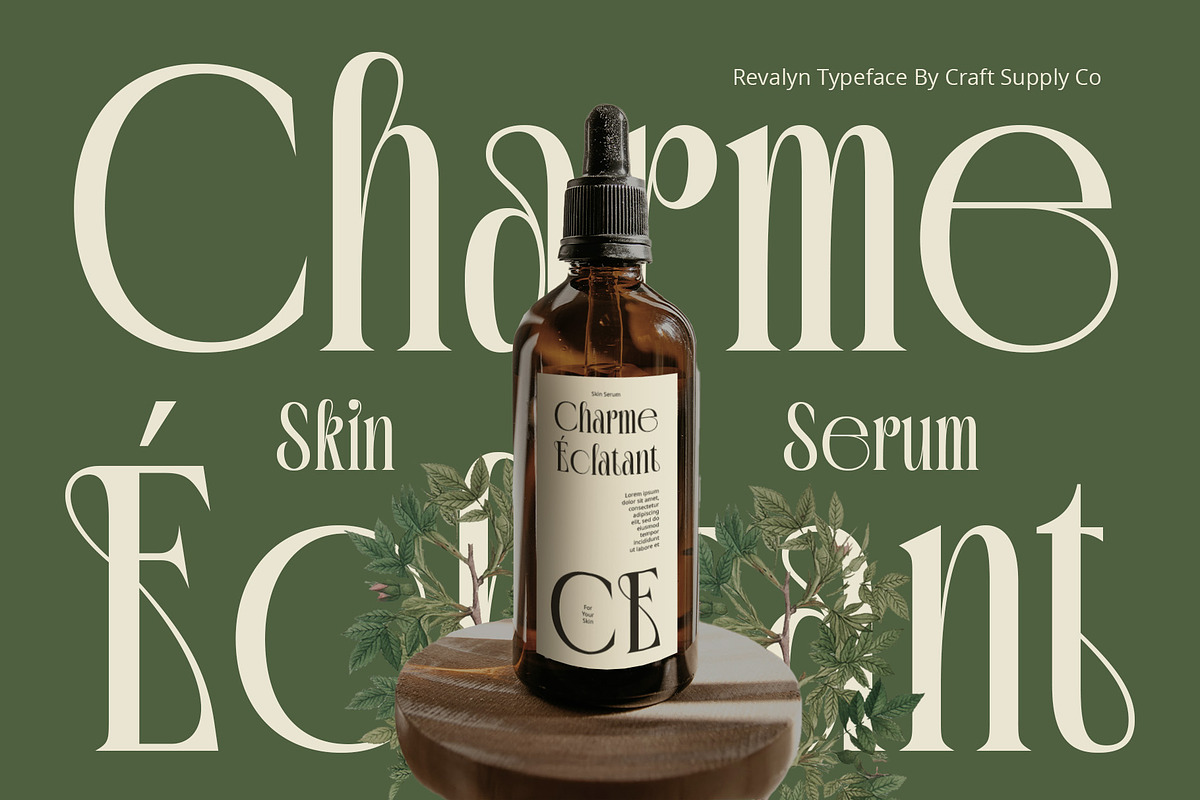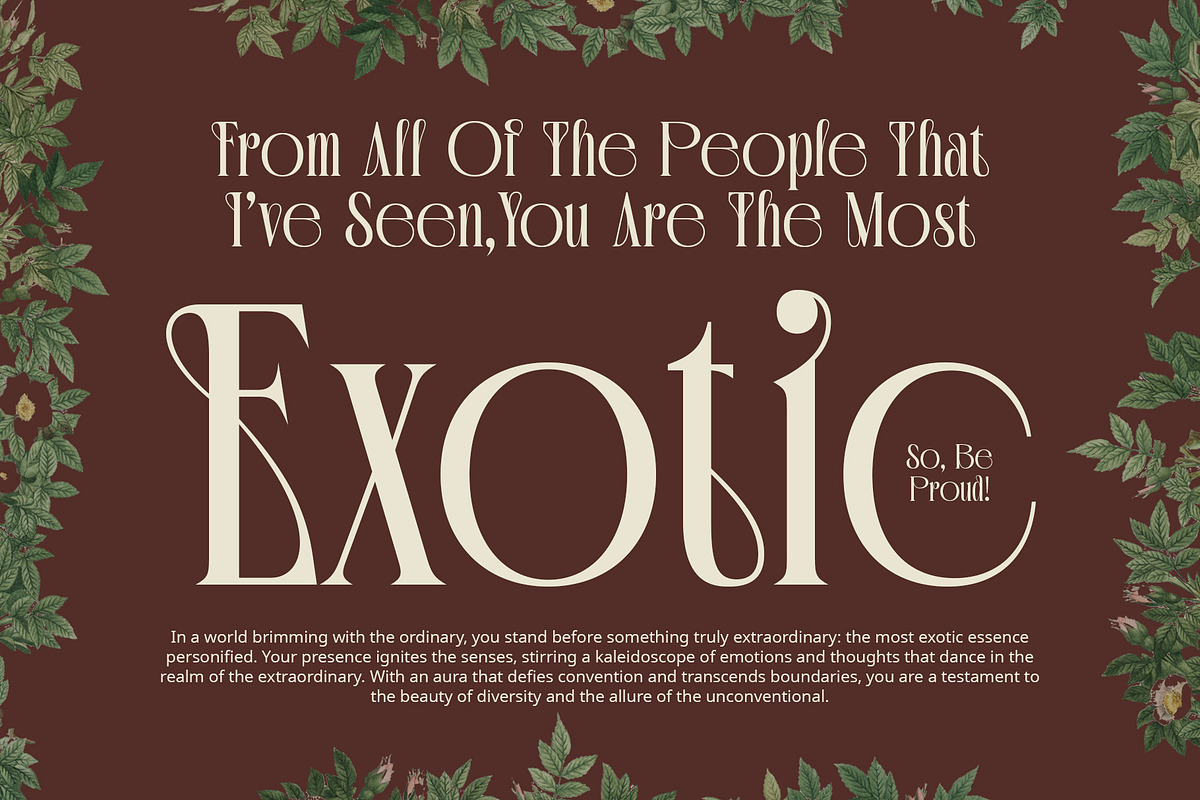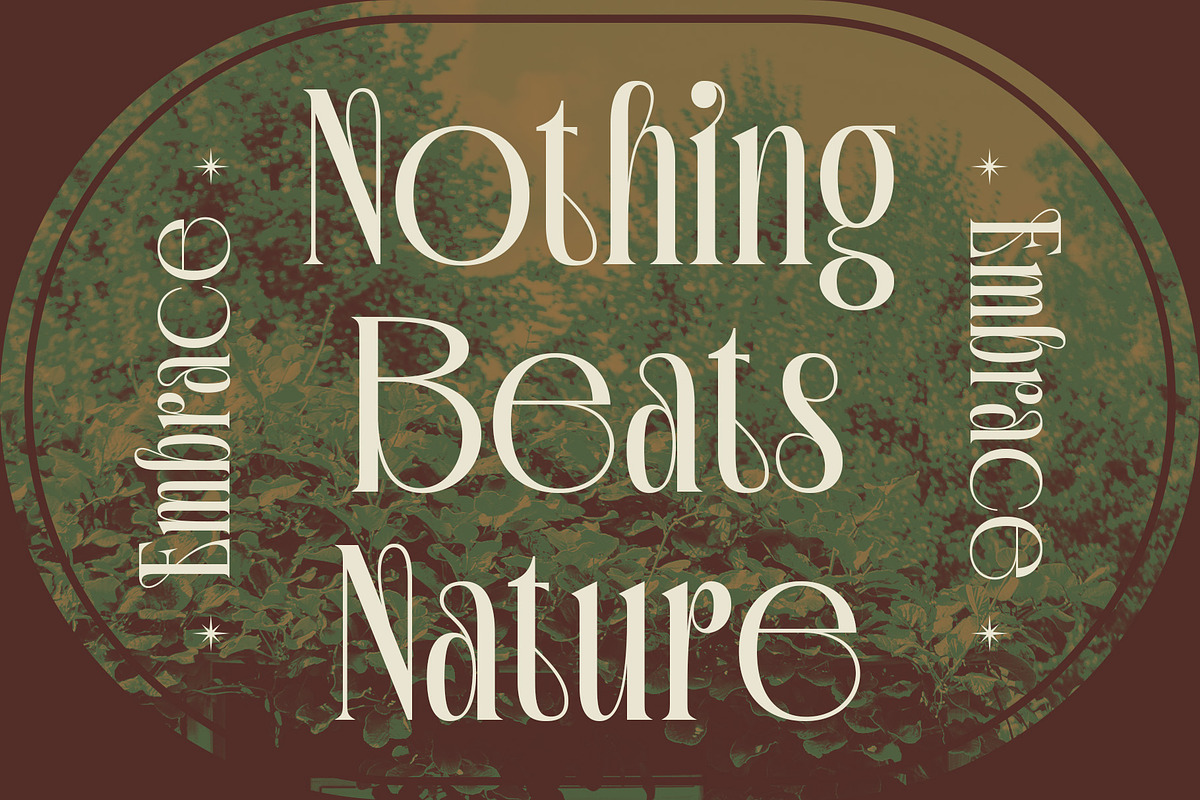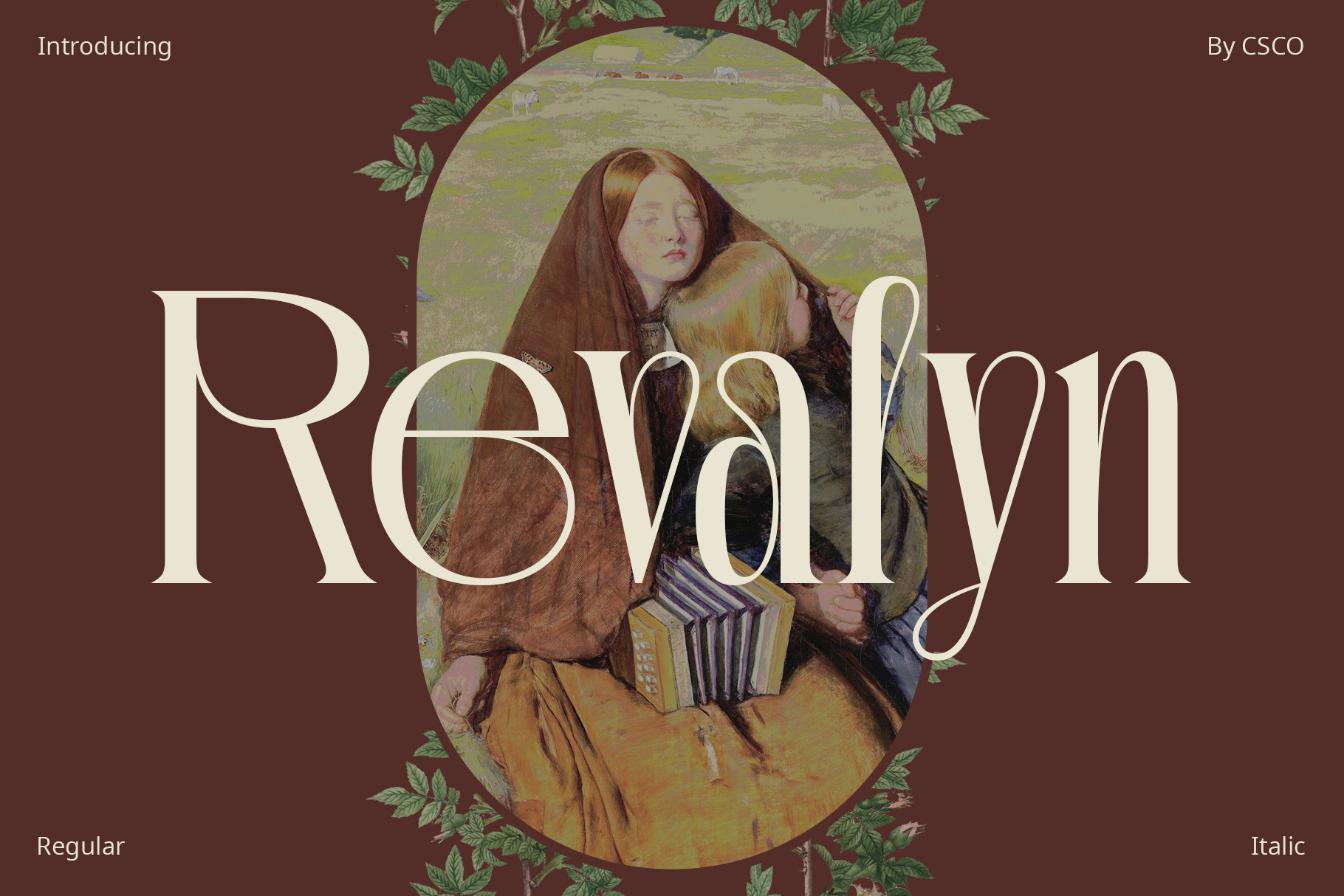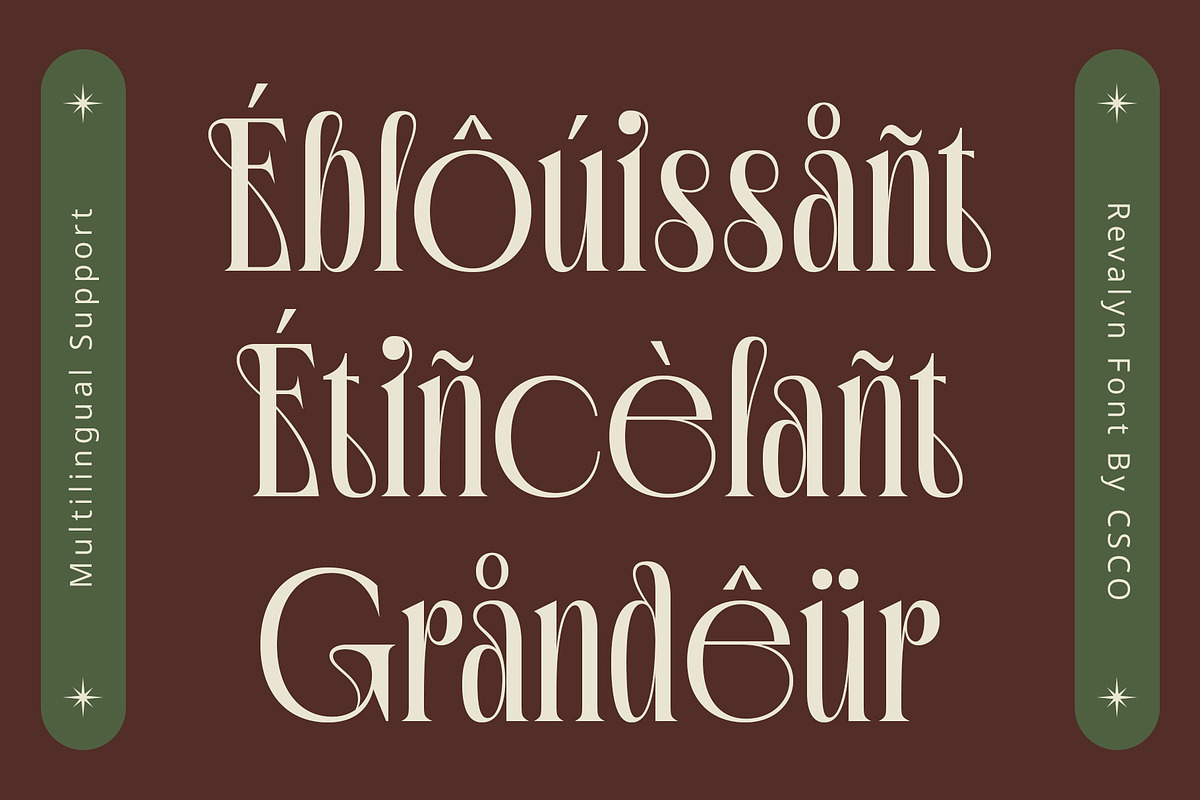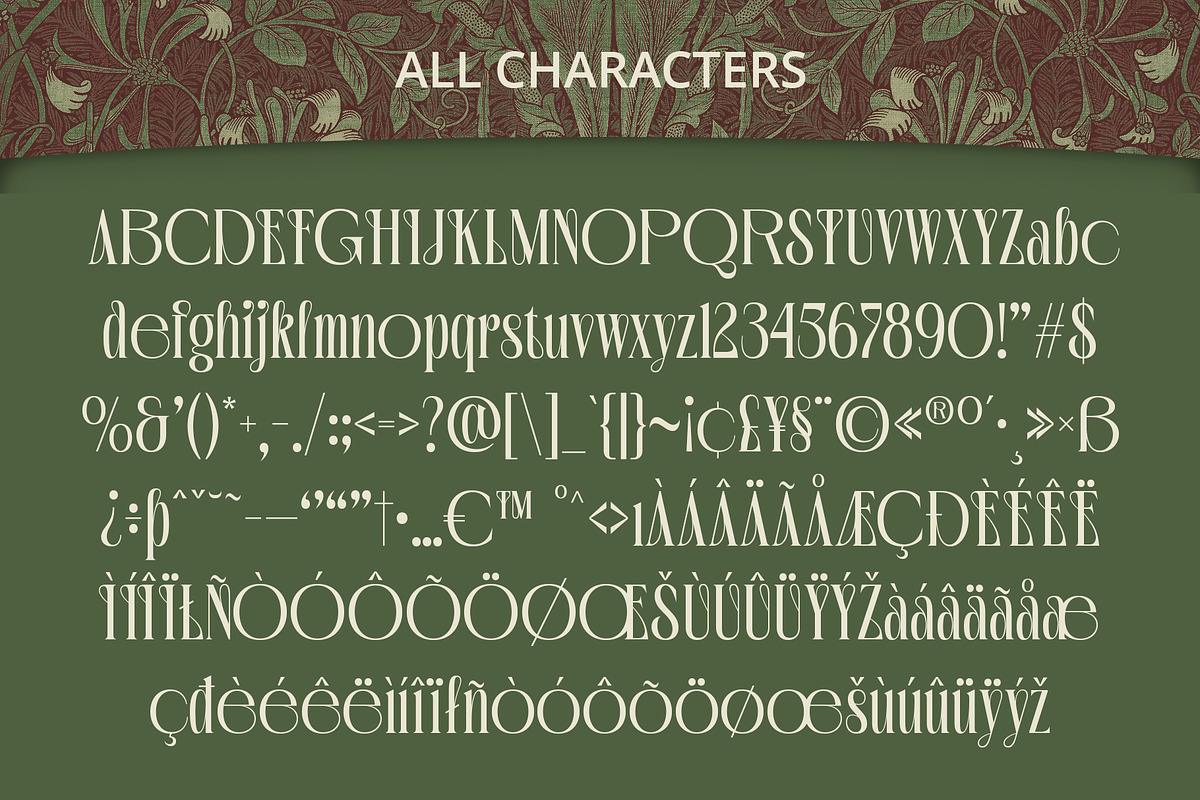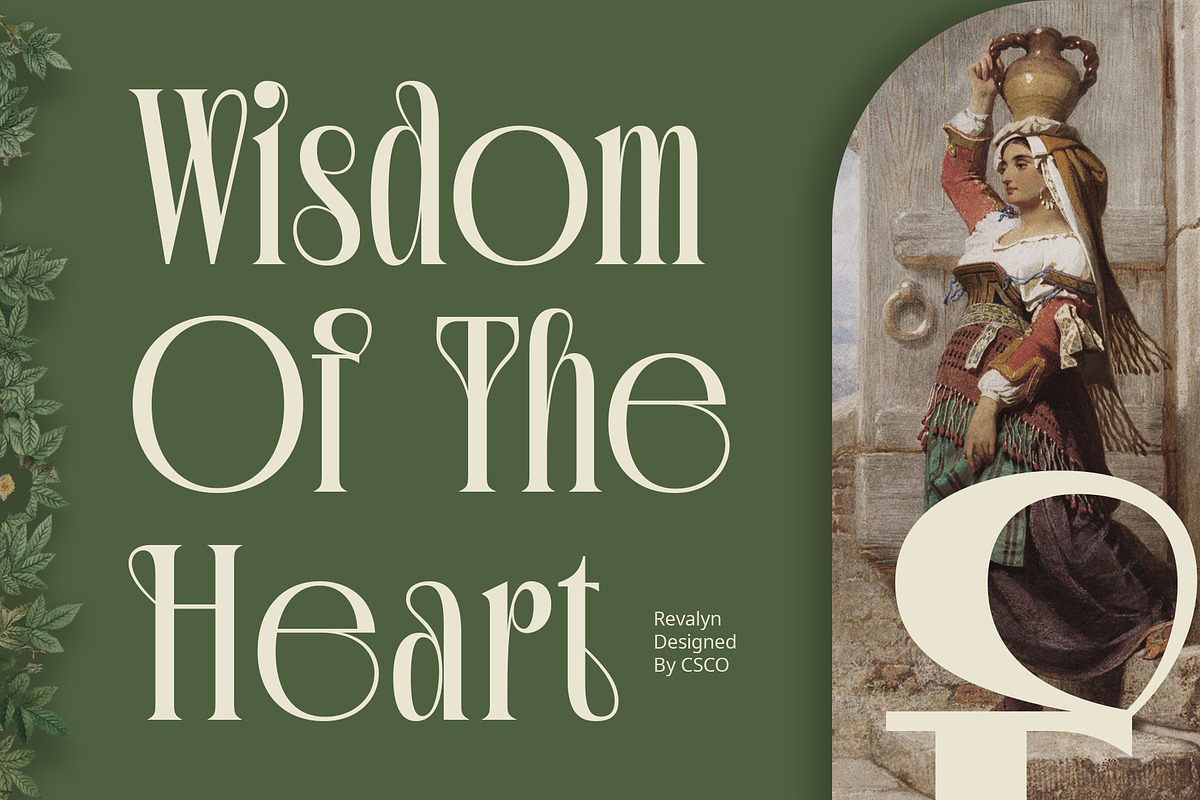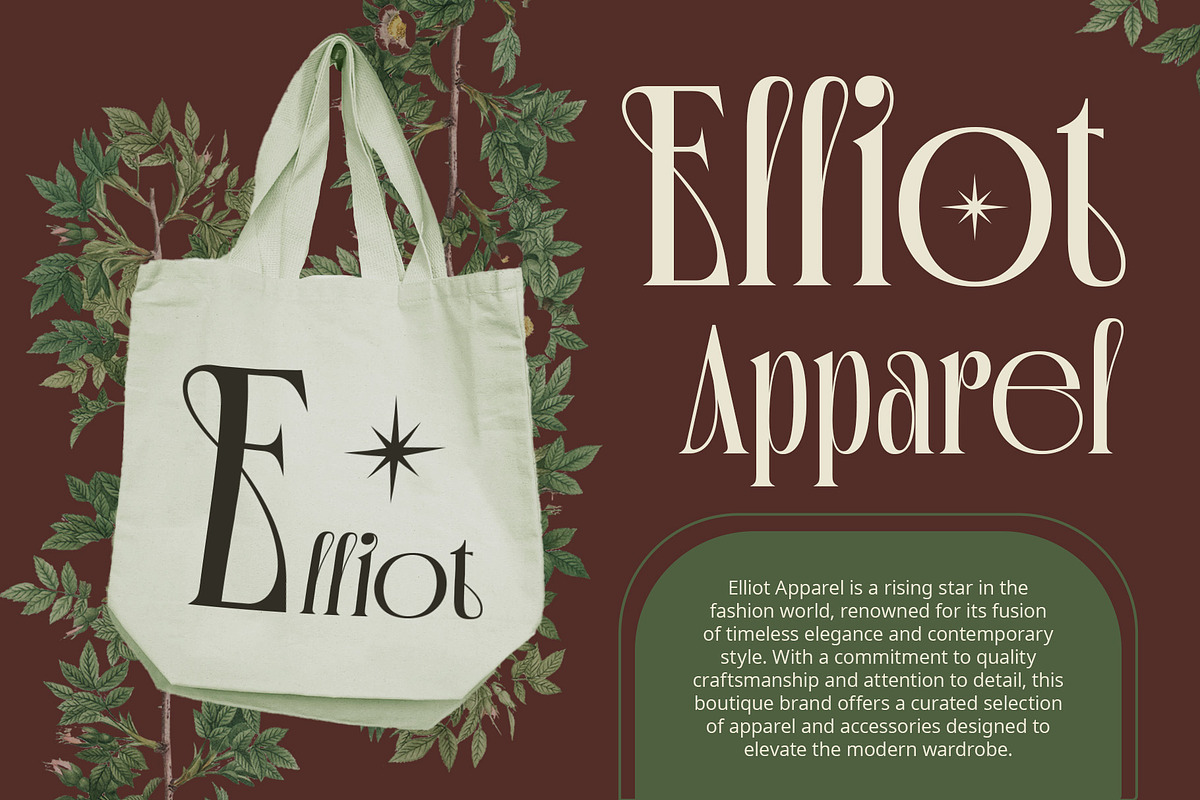
Revalyn – Art Noveau Font
Revalyn Art Noveau Font: Modern Retro Elegance
Innovative Retro Design Revalyn combines modern and retro elements, drawing inspiration from Art Nouveau. Its elegant serifs and flowing curves evoke a sense of nostalgia with a contemporary twist.
Sculpted Elegance With its intricate detailing and sculpted curves, This font exudes elegance. The serif font features refined lines and graceful curves, capturing the essence of Art Nouveau design.
Art Nouveau Inspiration This font design is influenced by the ornate style of Art Nouveau, characterized by flowing lines and organic shapes. The font pays homage to the artistic movement while adding a modern touch.
Versatile and Elegant Ideal for a variety of projects, This font offers versatility and sophistication. Whether used for branding, editorial design, or signage, its modern retro serif style adds a touch of elegance to any project.
Summary: Revalyn – Art Nouveau Font Revalyn art noveau font blends modern sophistication with retro charm, drawing inspiration from Art Nouveau design. Its elegant serifs and flowing curves make it perfect for projects that require a touch of timeless elegance with a hint of nostalgia.